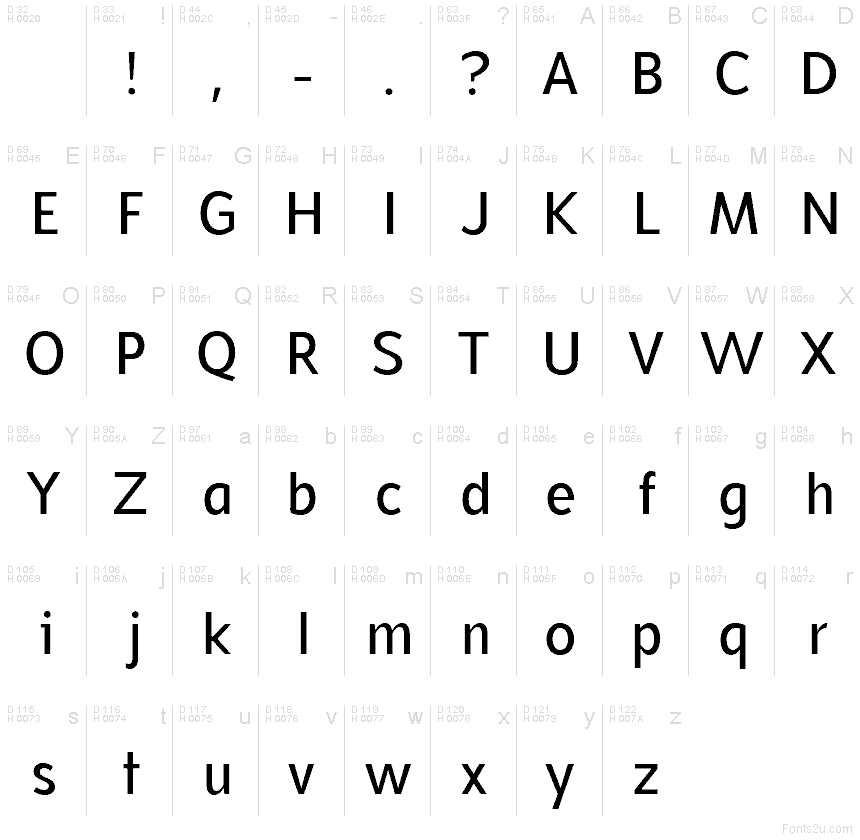
CF Gouble Demo Regular
CF Gouble font by Creatifont Studios bridges sleek modernity with subtle geometric influences for one clean sans serif. With minimalistic approaches being pivotal, this elegantly devised interface consists of subtle character variations for the causal sake of arresting audience attention in multiple ways.
Maximize interactions and engagements for web design or even printed designs as CF Gouble makes ideal logos, ad presentations, quotes, website headers, book covers and posters. Magazines, news articles and brochures will also do fine with some CF Gouble presence.